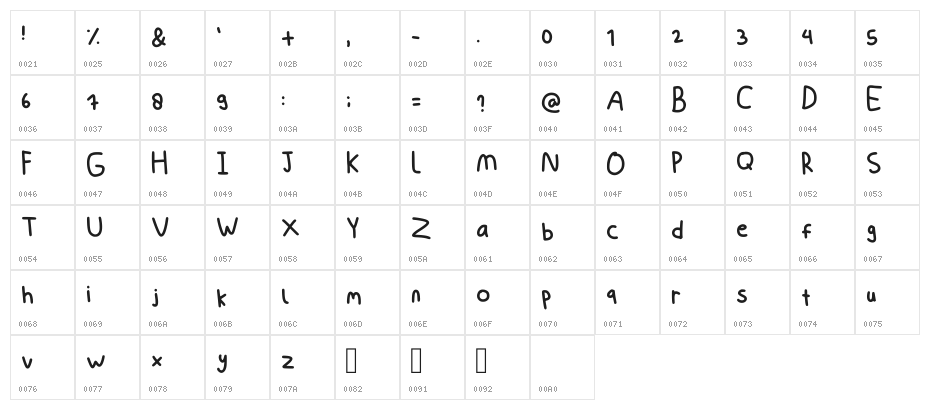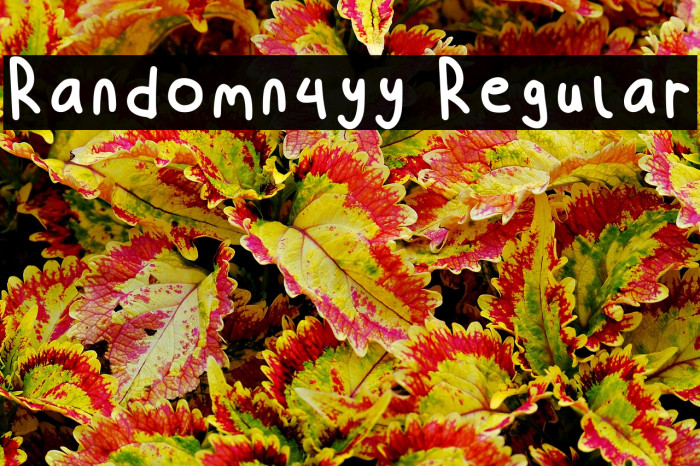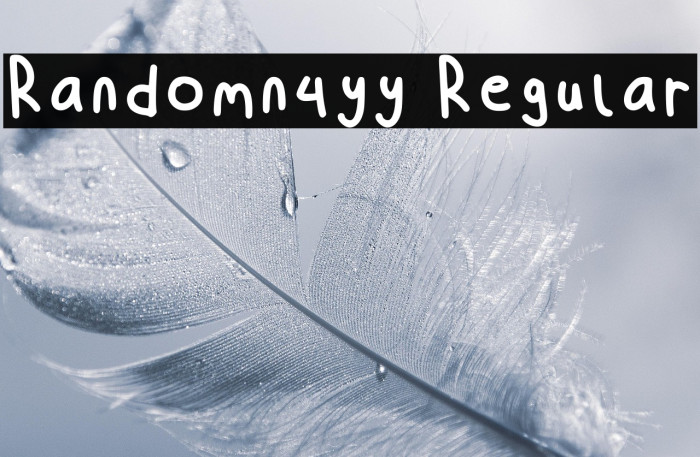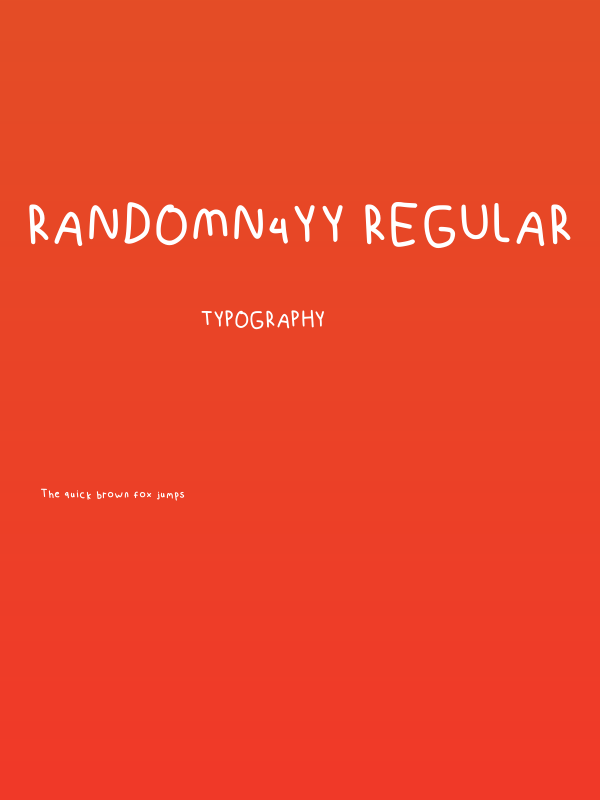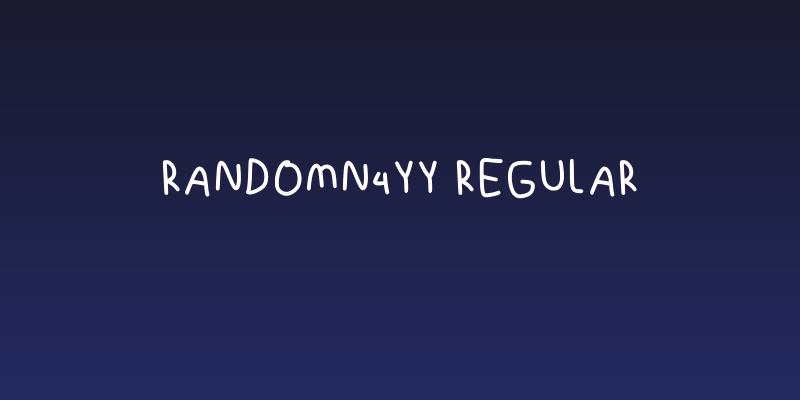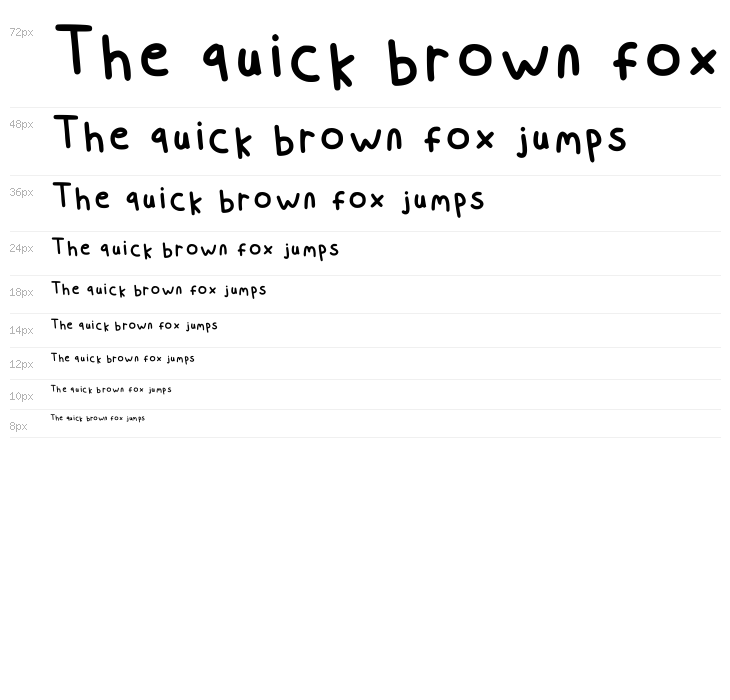
Randomn4yy Regular Font
| Stile generale | Casual |
| Caso d'uso | Headlines, Informal text, Branding |
| Progetti proposti | Ideal for children's books, greeting cards, casual invitations, and playful branding. |